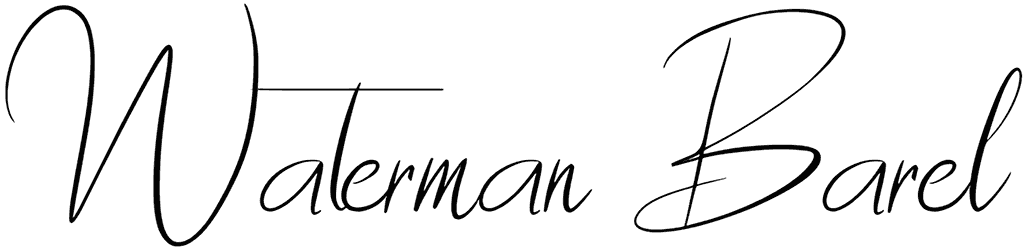
Waterman Barel Font
Even with a brief look at the design with elegant and stylish text, anyone can be curious about the ideas behind your design. This delicate calligraphy font, named Waterman Barel, is able to harmonize with various modern…
Even with a brief look at the design with elegant and stylish text, anyone can be curious about the ideas behind your design. This delicate calligraphy font, named Waterman Barel, is able to harmonize with various modern and classic projects. This all-purpose signature font would be a clever choice for many projects like postcards, branding, apparel, invitations, and so forth.